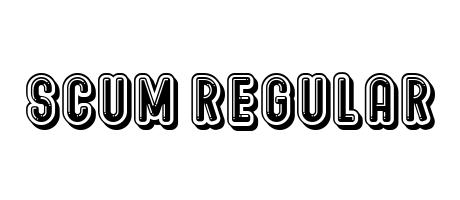
Scum
Scum Regular is a bold, playful display font. Its chunky, uppercase letters boast a distinct outlined style reminiscent of retro cartoons or comic books. The thick, black outlines create a strong visual impact, and the slightly rounded edges soften the otherwise harsh geometry. It evokes a sense of fun and slightly rebellious energy.
Scum Regular